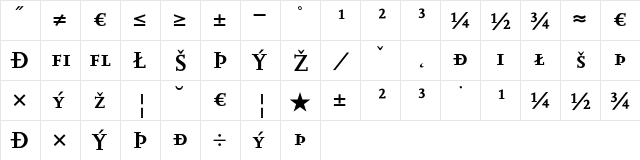
Scala Caps Exp Bold
Design Context for Scala Caps Exp Typeface
Scala Caps Exp takes a measured approach to typography — its balanced proportions and neutral character make it a reliable workhorse for both digital and print work. Its bold stroke weight gives it real presence on the page.
Pro Tip: Pair Scala Caps Exp with a font of contrasting weight or personality to build a more expressive typographic hierarchy.